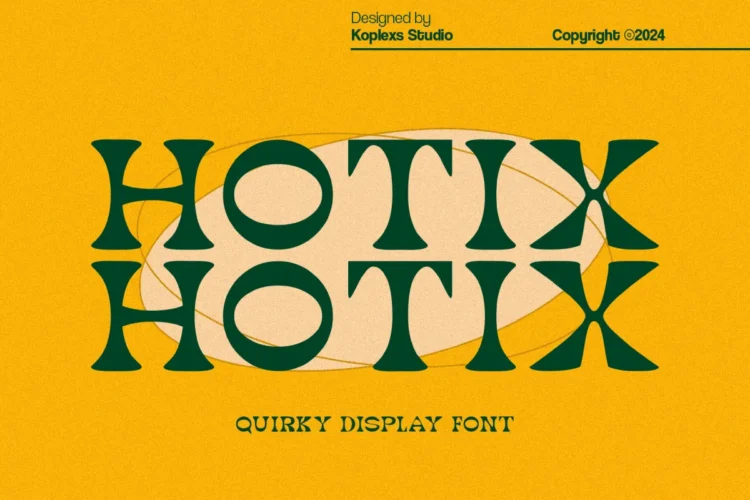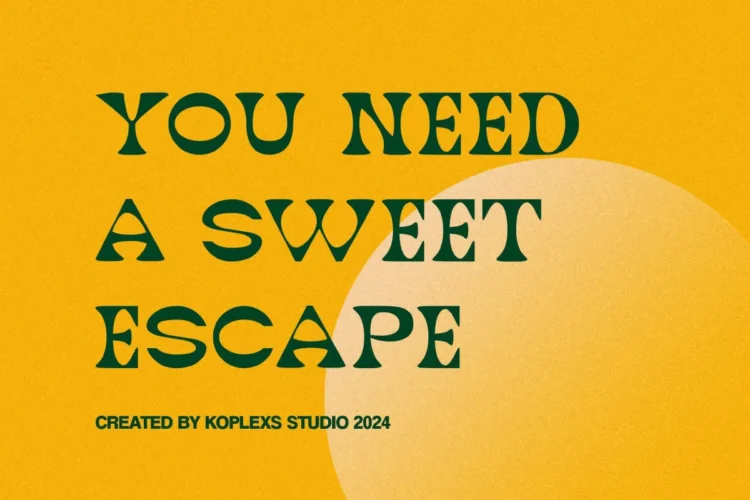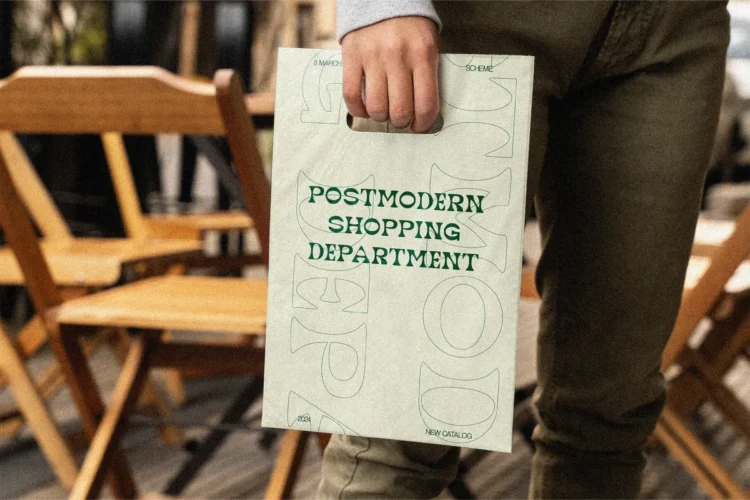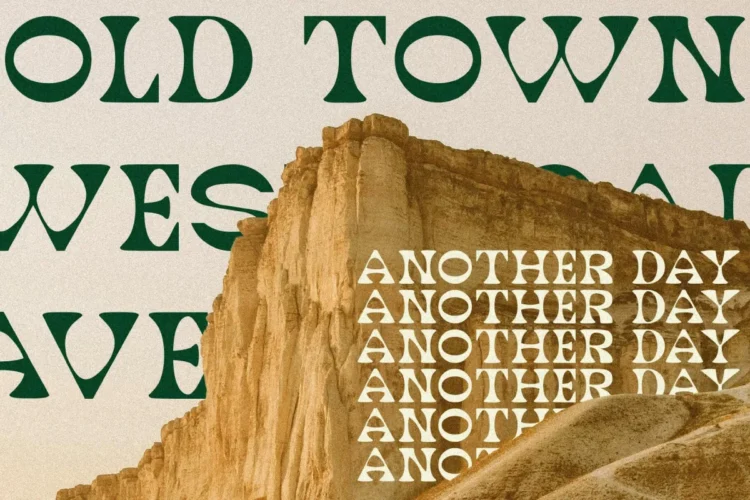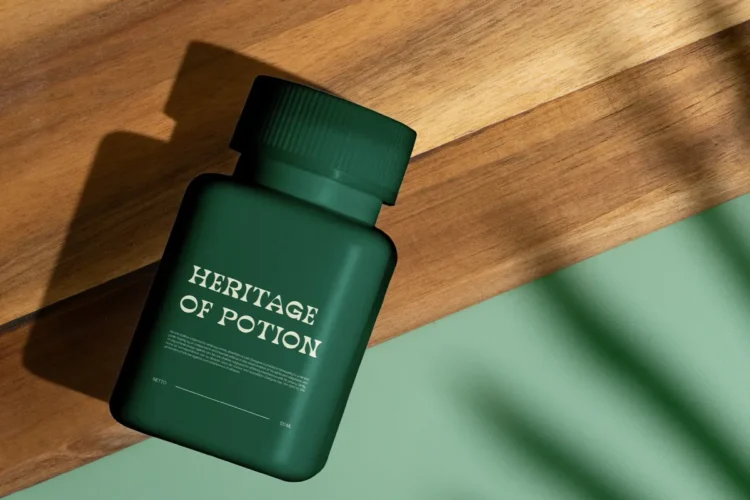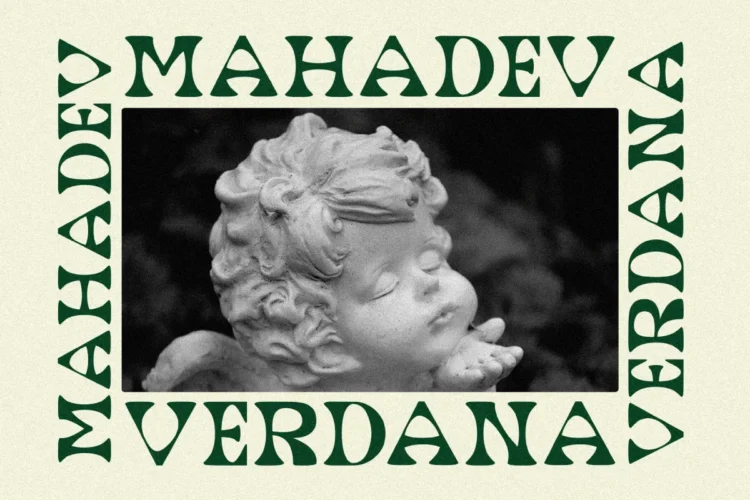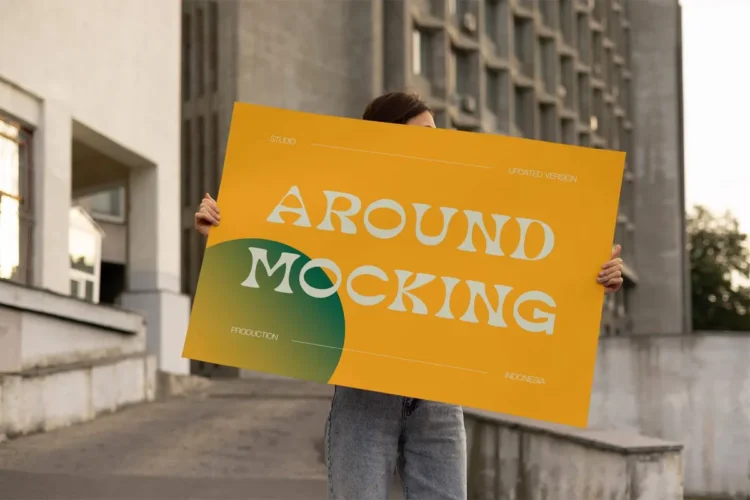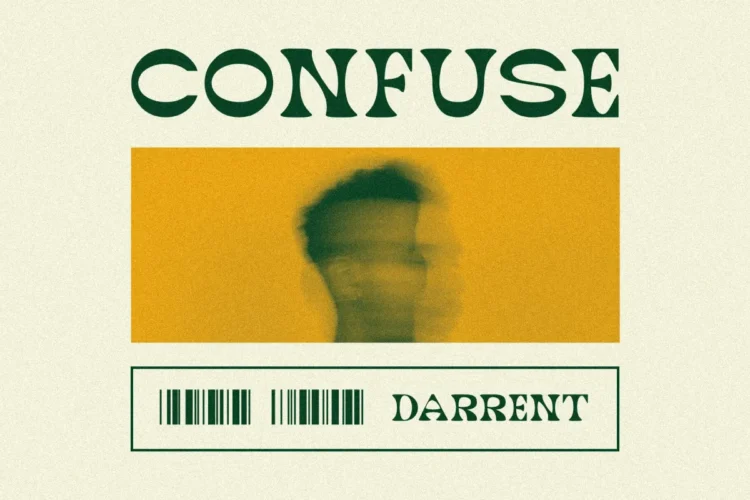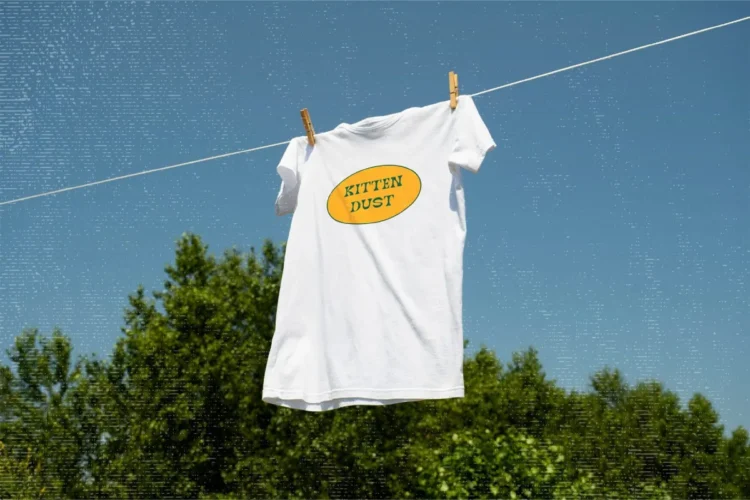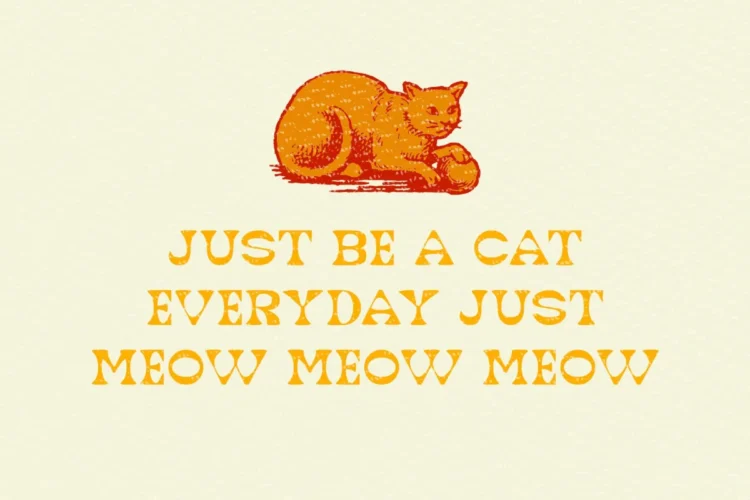
Hotix Font – Unique Quirky Display Typeface for Retro & Modern Designs
Hotix Font is a bold, quirky display font typeface designed to bring character and originality to your creative projects. With its retro-inspired curves, high-contrast strokes, and distinctive letterforms, Hotix Font stands out in both digital and print media. Created by Koplexs Studio, this font blends vintage aesthetics with a modern twist, making it perfect for designers who want to capture attention instantly.
Whether you’re working on branding, posters, packaging, or apparel, Hotix Font delivers a fun and stylish vibe. Its playful yet elegant style adapts seamlessly to various design needs.
Hotix Font Perfect for :
Hotix Font is versatile and works beautifully for :
- Branding & Logo Design – Unique identity for businesses
- Posters & Flyers – Eye-catching retro-modern vibes
- Apparel & Merchandise – T-shirts, tote bags, and labels
- Social Media & Marketing – Bold statements for campaigns
- Packaging Design – Perfect for vintage or artisanal products
- Editorial & Print Design – Magazines, zines, and book covers
With Hotix Font, your designs will instantly stand out while maintaining a sense of creativity and charm.